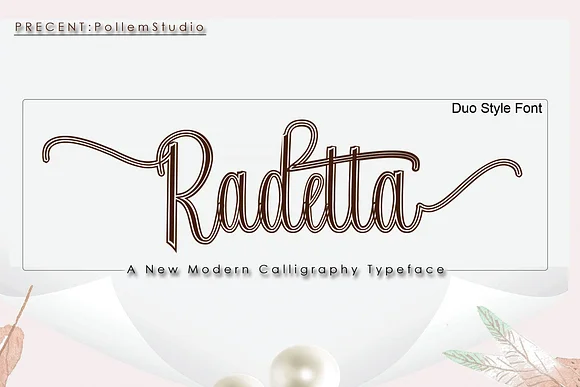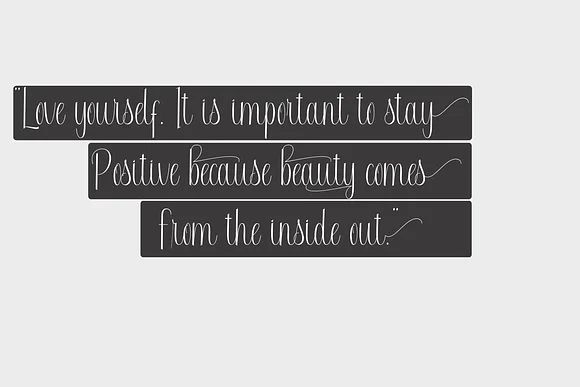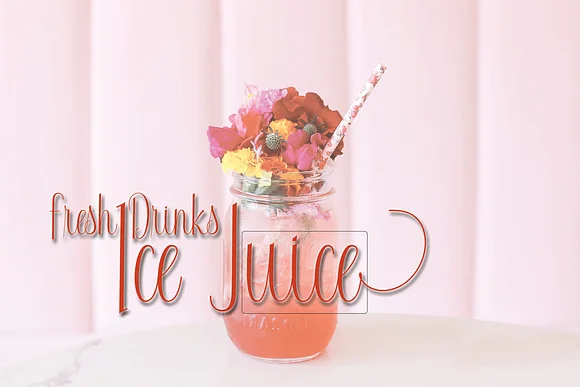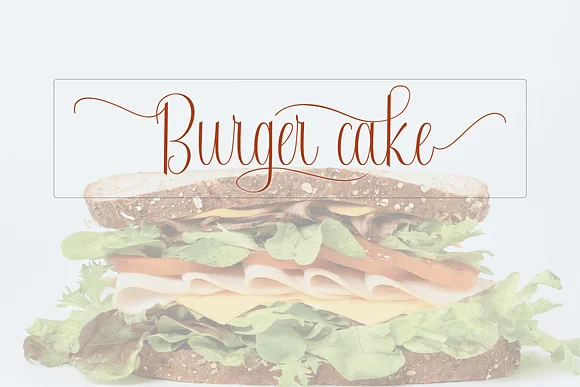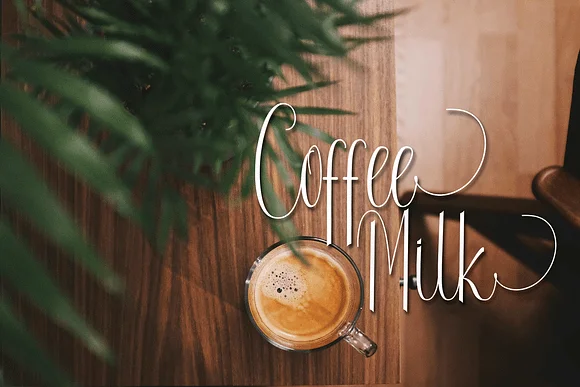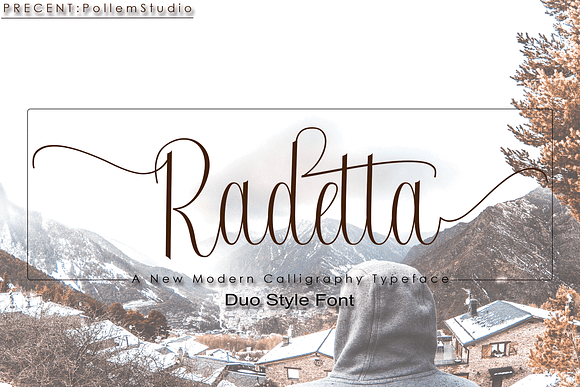
Radetta Font
Radetta Font is perfect for branding, website headings, social media graphics, poster designs, and editorial layouts. Its modern, clean, and versatile style makes it suitable for a wide range of creative projects.
What makes Radetta Font exciting is its sleek, well-balanced letterforms that combine readability with a contemporary, stylish aesthetic. The font’s design ensures your text stands out with elegance and clarity.
The Radetta Font family includes Regular, Bold, Italic, and Light variations, providing designers flexibility to create cohesive and visually appealing typographic compositions.
For designers seeking a modern, versatile, and professional typeface, Radetta Font is a perfect addition to any creative toolkit.